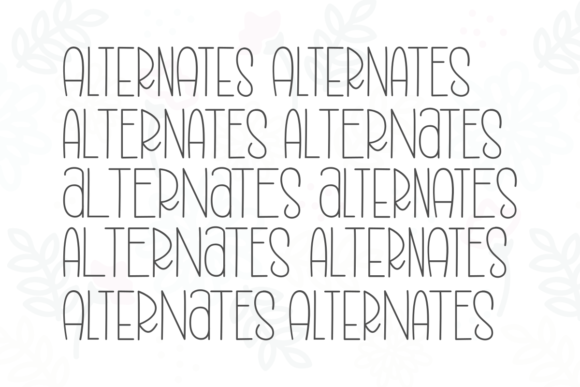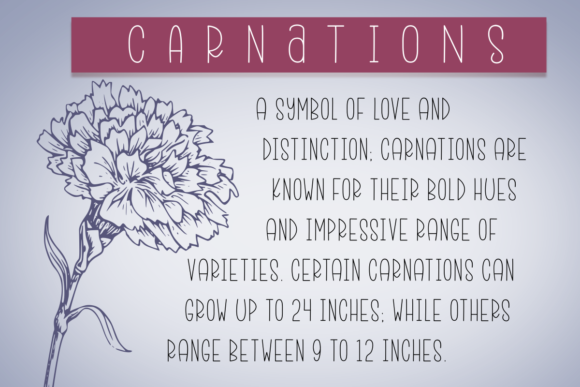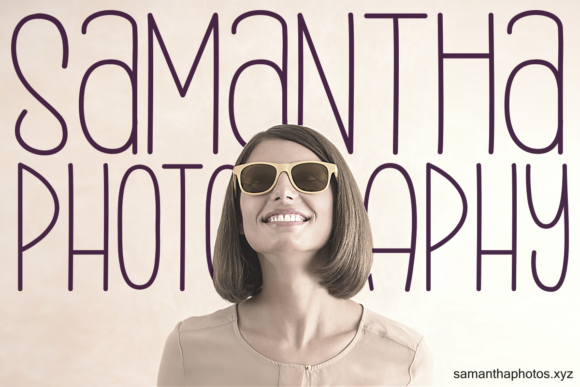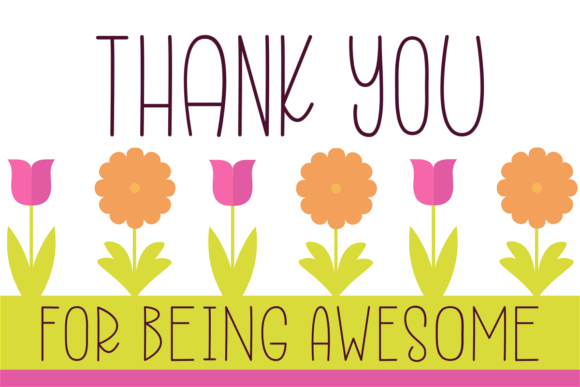
Summer Flowers Font
About Summer Flowers Font
Summer Flowers is a cute, tall and thin lettered script font. Its natural and simple style makes it incredibly fitting to a large pool of designs. The only limit is your imagination!